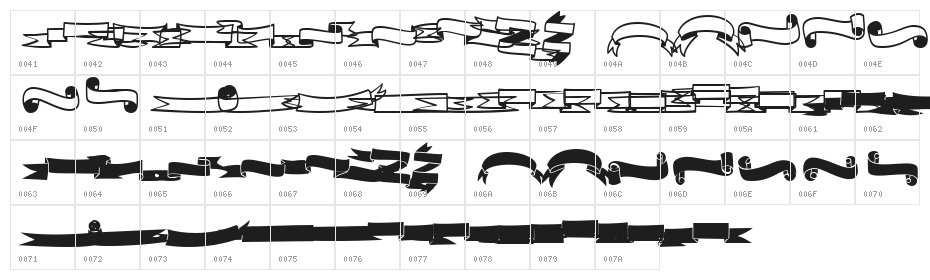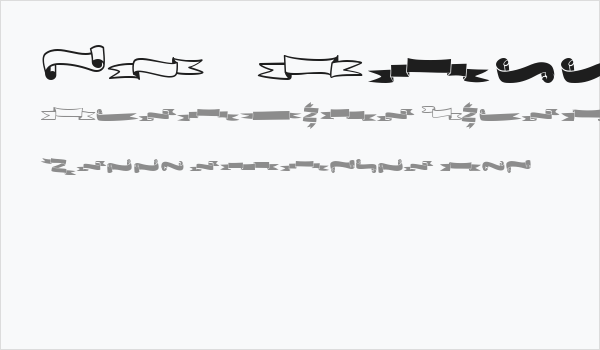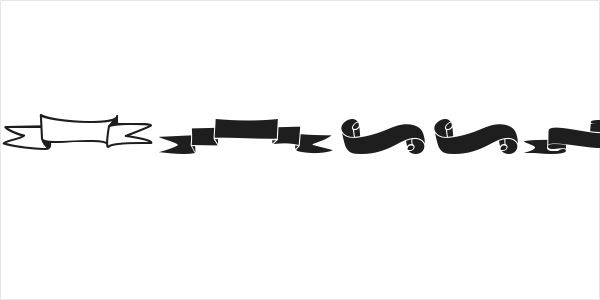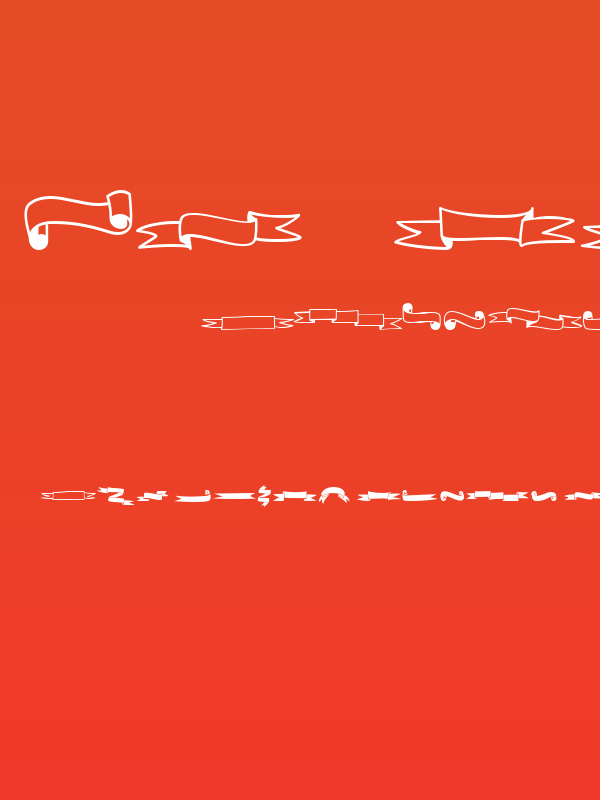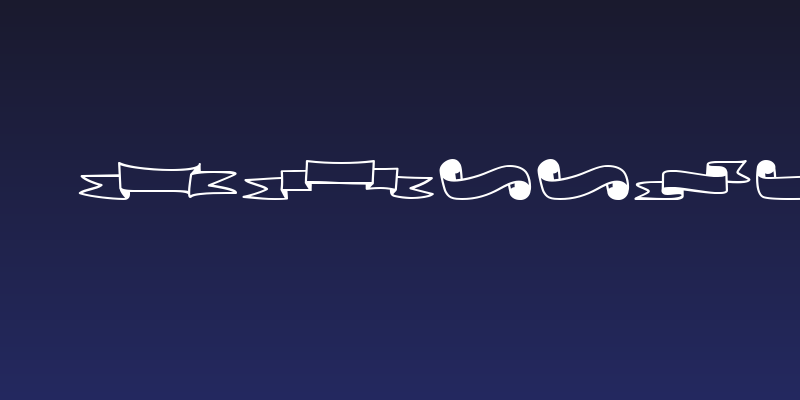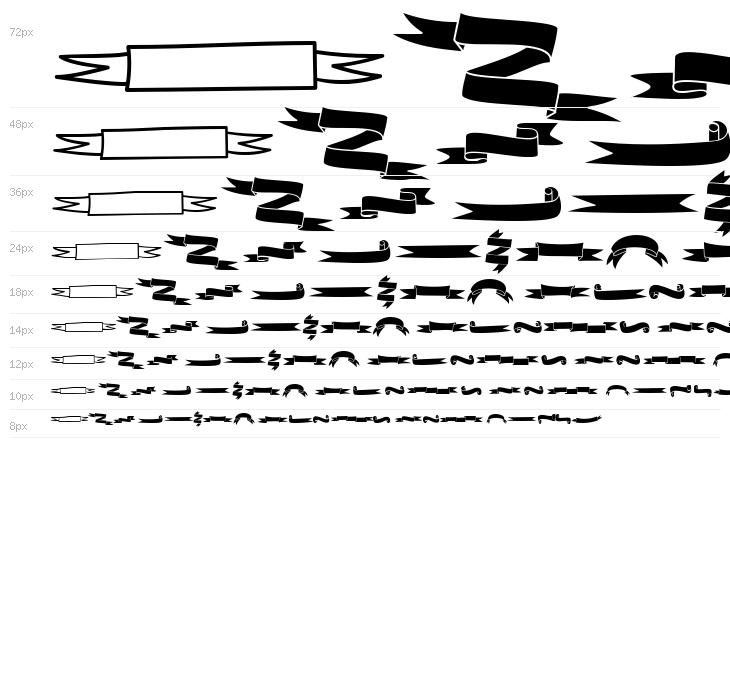
MF 26 Banners Font
MF 26 Banners Description
This design features a series of decorative banner elements, each with a unique style and flair. The banners are intricately detailed, with flowing curves and sharp edges that create a dynamic and eye-catching appearance. These elements are perfect for adding a touch of elegance and sophistication to any project. The design includes a variety of shapes and sizes, allowing for versatile use in different contexts. The banners are ideal for creating borders, dividers, or embellishments in graphic design projects. Their intricate details and stylish appearance make them suitable for both modern and vintage-themed designs.
| Use Case | Logos, Decorative elements |
| Proposed Projects | Ideal for invitations, posters, branding materials, and decorative borders. |